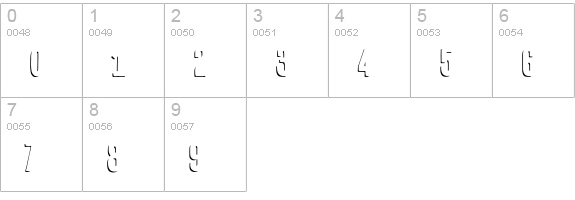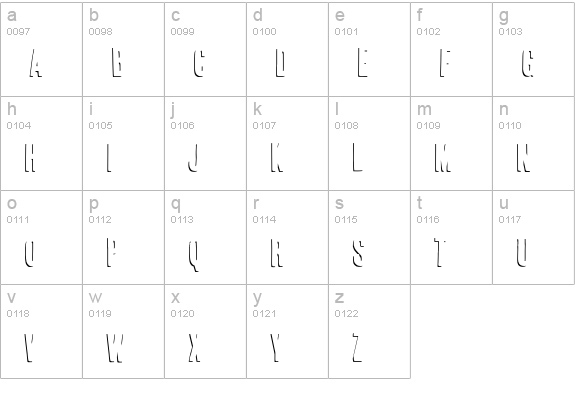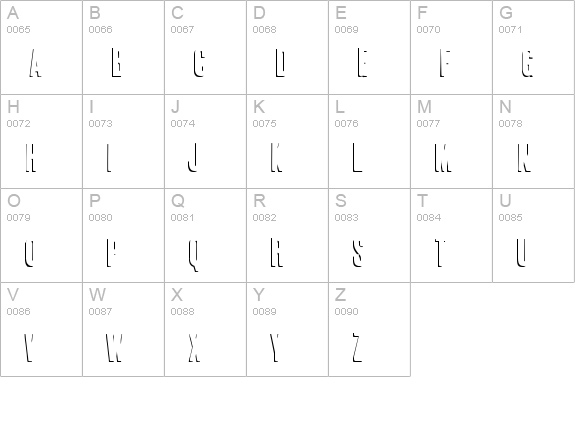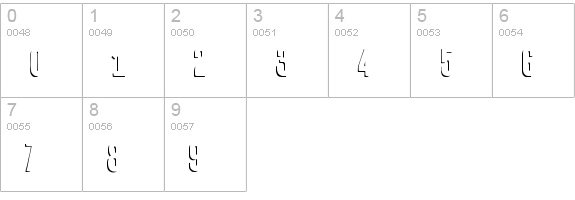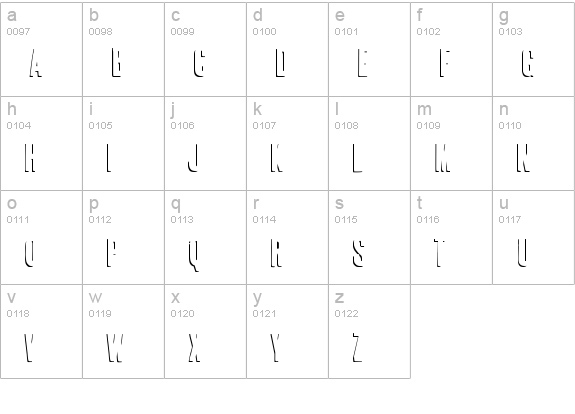
The Cheap Pine Shadow font is a whimsical and playful typeface that exudes charm and character. With its unique shadow effect and rustic pine-inspired design, this font is perfect for adding a touch of nature and creativity to your projects. Whether you're designing a cozy invitation, a rustic logo, or a charming poster, the Cheap Pine Shadow font will bring a fresh and distinctive look to your work. Best of all, this font is available for free download at FontsMarket.com. Simply visit the website to access this delightful typeface and start incorporating its unique style into your designs today. Embrace the rustic charm of Cheap Pine Shadow and let your creativity shine with this beautiful and freely available font.